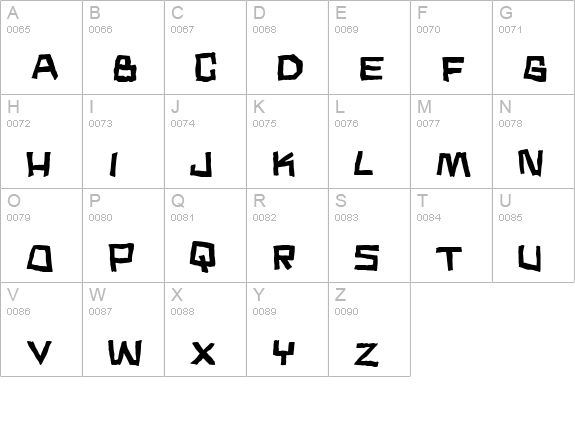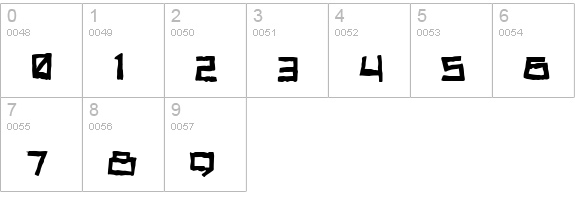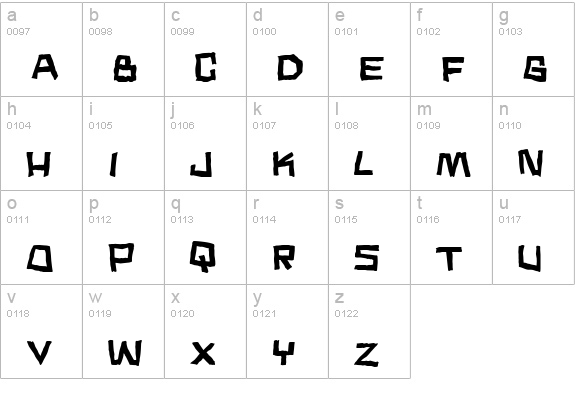
Noodle soup Font Details
Introducing the delightful Noodle Soup font, a charming and playful typeface that will add a touch of whimsy to your creative projects. With its unique and hand-drawn style, Noodle Soup is perfect for adding a fun and friendly feel to posters, invitations, branding, and more. This font is not only eye-catching but also versatile, making it suitable for a wide range of design applications. Whether you're working on a children's book, a food blog, or a quirky product packaging, Noodle Soup will bring a fresh and exciting look to your designs. Best of all, Noodle Soup is available for free download at FontsMarket.com. So why wait? Add a splash of fun to your next project with the delightful Noodle Soup font!